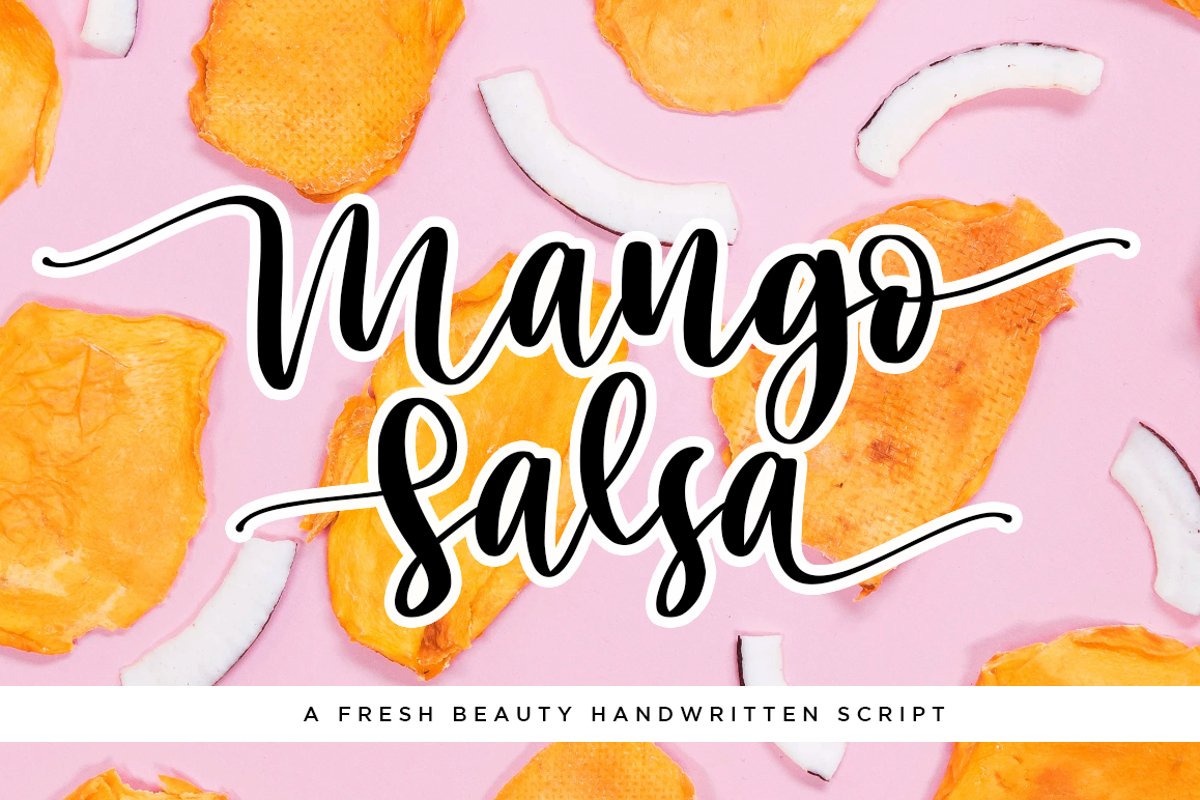
Mango Salsa with Bouncy Handwritten Script Font Style
Mango Salsa
A handwritten font with bouncy script style
• Cute and pretty style with swashes alternate in lowercase and titles alternate in uppercase
• Numerical, Punctuation, Multi language included